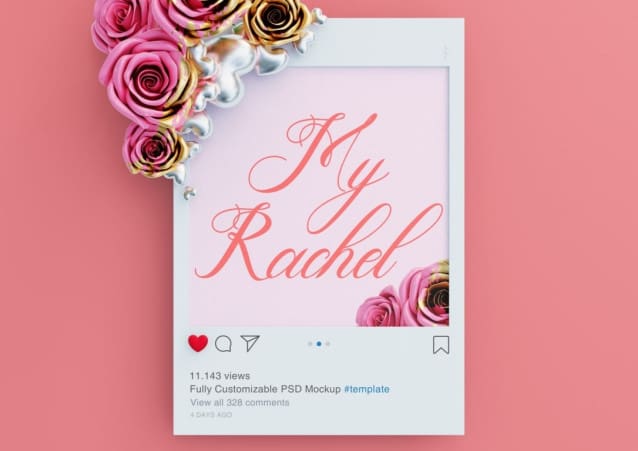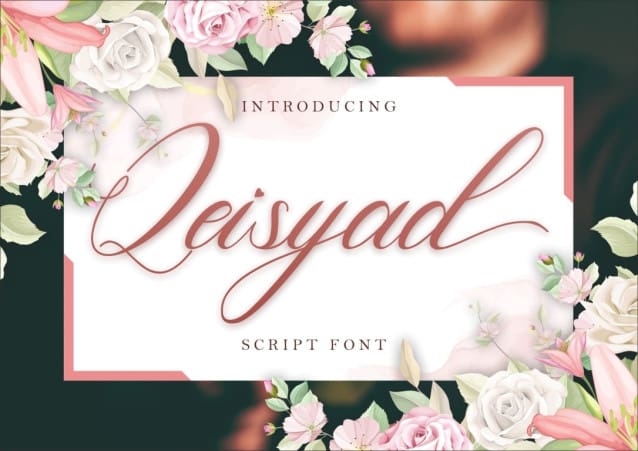
Qeisyad Font
Qeisyad Font, an exquisite script font meticulously crafted to become an instant favorite. This font effortlessly combines classic calligraphic influences with a contemporary and refreshing twist. Prepare to be captivated by its charm and let Qeisyad elevate your projects to new heights of elegance and sophistication.